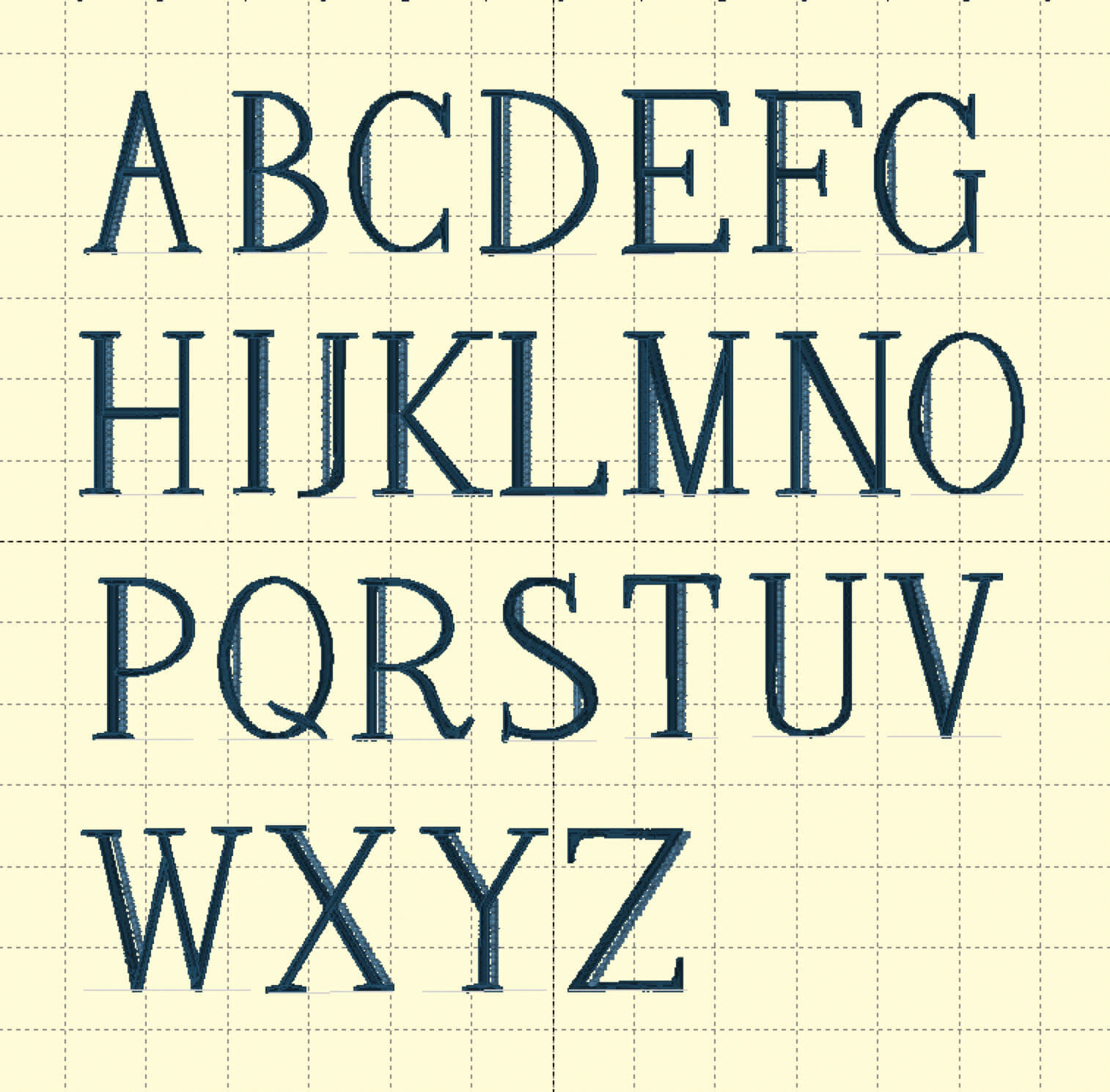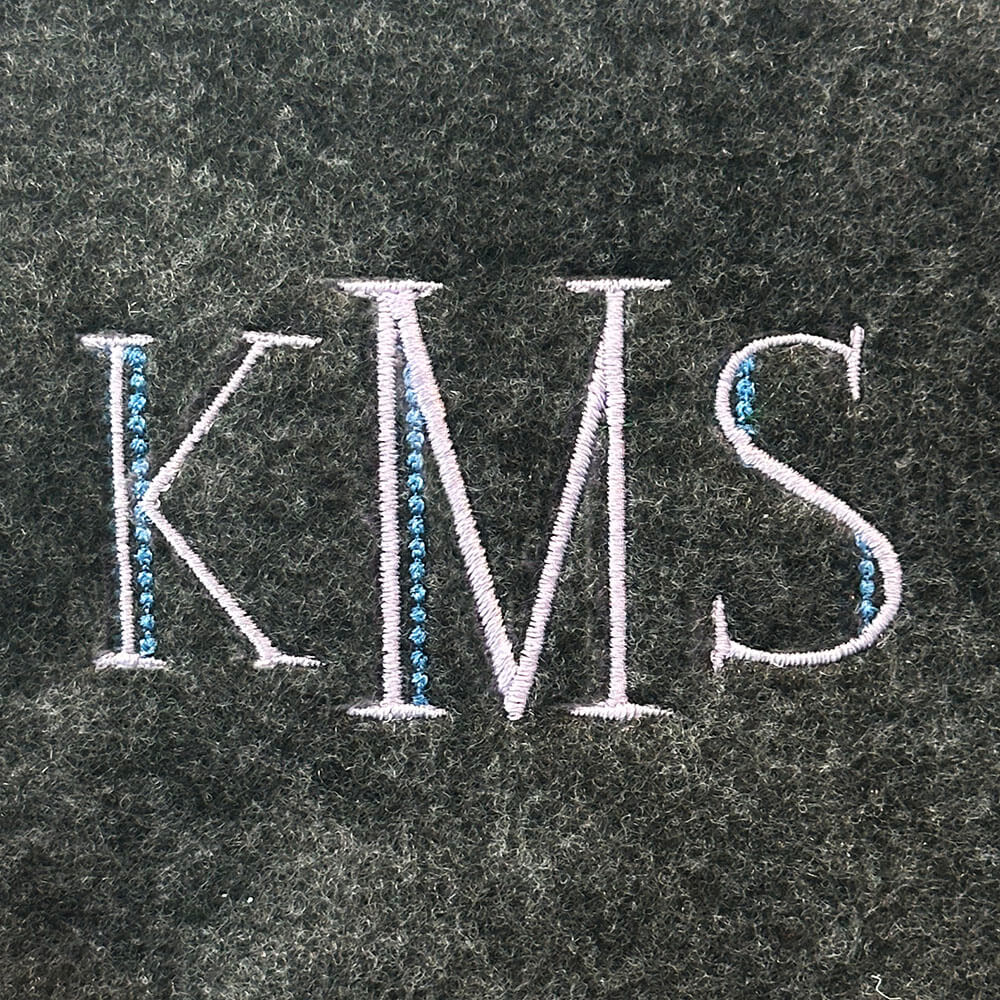
Primrose Serif Monogram Font
The Primrose Serif Monogram is both whimsical and elegant – perfect for creating a luxurious and high-end look with a touch of fun.
Primrose Serif Monogram – Machine Embroidery Font
All upper case letters suitable for building monograms